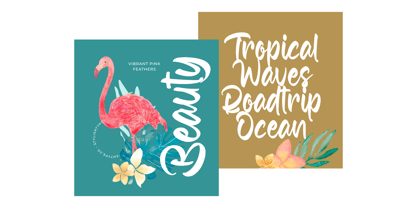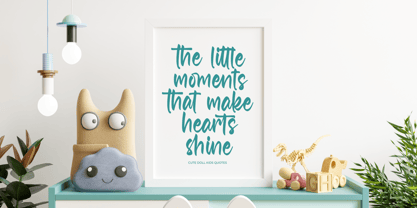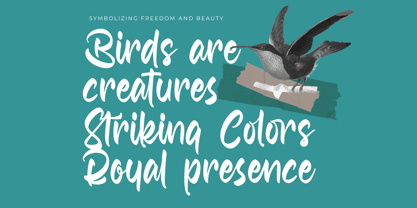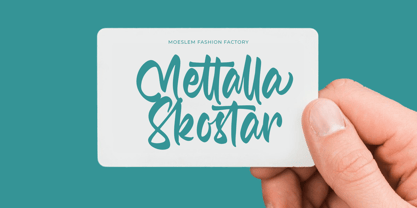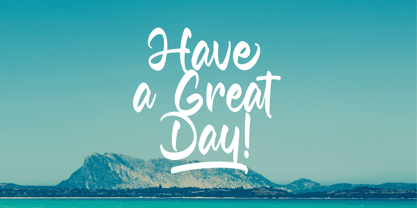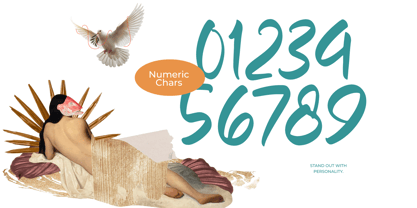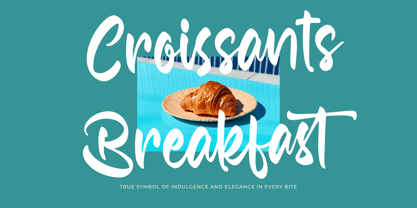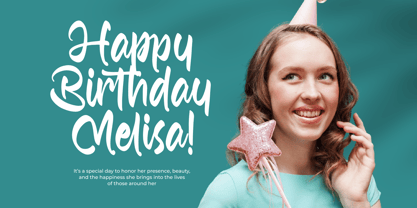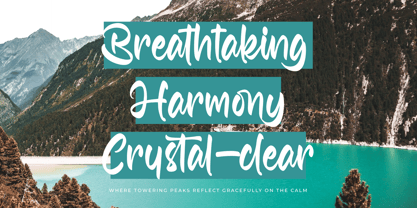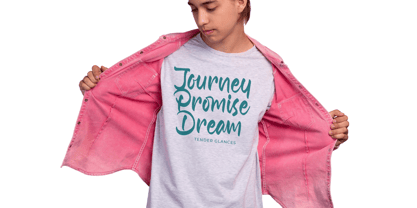
Hadley Bestone
by Letterena Studios
The Hadley Bestone Font Family was designed by Heru Utama Putra and published by Letterena Studios. Hadley Bestone contains 2 styles and family package options. More about this family
Hadley Bestone - Bold Handwritten Font Type, from Letterena, is a Luxury Script font, suitable for any projects such as: logos, branding projects, homeware designs, product packaging, mugs, quotes, posters, shopping bags, t-shirts, book covers, name card, invitation cards, greeting cards, label, photography, watermark, special events, and all your other luxury and beautiful projects that need a Luxury Script taste.